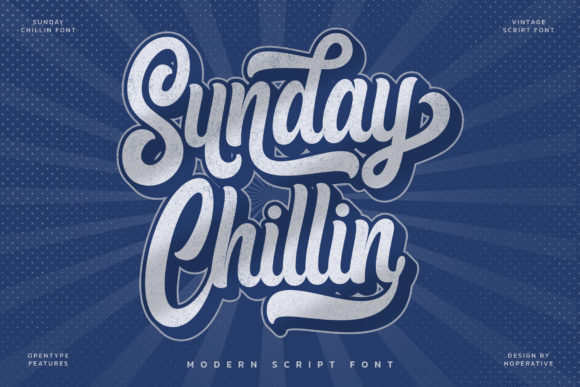
Looking for a font that can add character to your designs and elevate your brand? Look no further than Sunday Chillin Font, created by the talented designers at Hoperative Design.
This stunning retro script font is perfect for those who are looking to add a touch of nostalgia to their designs. With its stylish curves and unique flourishes, Sunday Chillin is guaranteed to grab the attention of anyone who sees it.
Whether you're working on a logo, branding, invitation, stationery, or social media post, Sunday Chillin will help your designs stand out from the crowd. And with its PUA encoding, accessing all of the glyphs and swashes has never been easier.